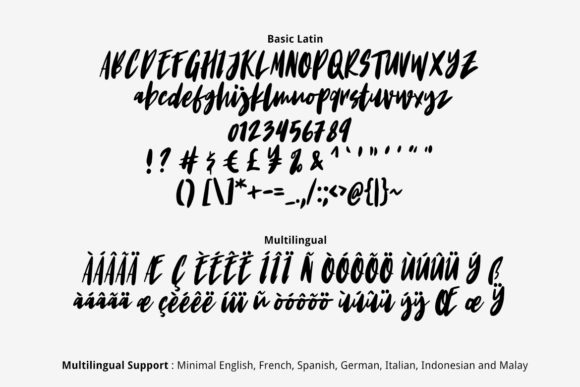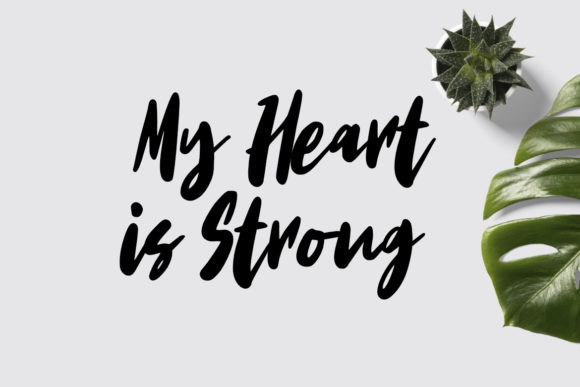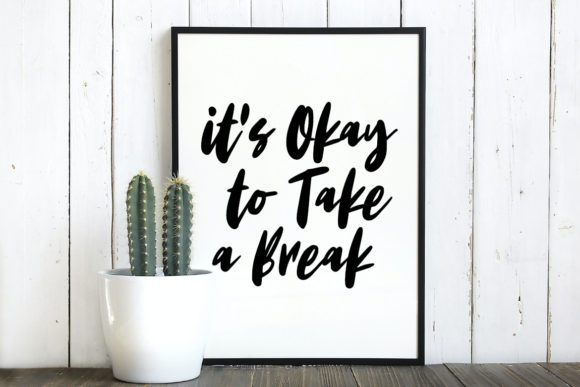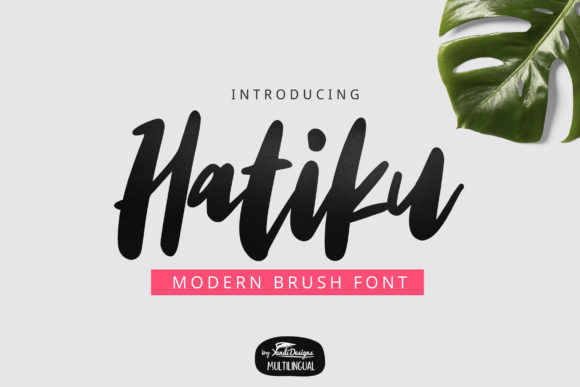
Introducing Hatiku Font: The Cute and Playful Handwritten Font for Designers and Crafters
Are you looking for a font that can add a touch of playfulness and innocence to your design projects? Look no further than Hatiku Font! This adorable handwritten font is perfect for designers and crafters who want to create fun and engaging designs that are sure to delight. In this article, we’ll take a closer look at Hatiku Font, its features, and how you can use it to take your designs to the next level.
What is Hatiku Font?
Hatiku Font is a cute yet thick lettered handwritten font that is sure to capture the hearts of designers and crafters alike. Its lovely and childish appearance makes it perfect for a variety of school projects, informal design ideas, and even commercial projects that require a playful touch. The font’s unique and charming style is sure to add a personal touch to any design, making it stand out from the crowd.
Key Features of Hatiku Font
So, what makes Hatiku Font so special? Here are some of its key features:
- Cute and Playful Design: Hatiku Font has a unique and adorable design that is sure to bring a smile to anyone’s face. Its thick lettered style gives it a sturdy and confident look that’s perfect for headlines and titles.
- Handwritten Style: The font has a beautiful handwritten style that gives it a personal and organic feel. This makes it perfect for designs that require a touch of warmth and personality.
- Versatile: Hatiku Font is incredibly versatile and can be used on a wide range of design projects, from school projects and crafts to commercial designs and branding.
- Easy to Read: Despite its playful design, Hatiku Font is easy to read and understand, making it perfect for designs that require a clear and concise message.
How to Use Hatiku Font in Your Designs
Now that we’ve covered the features of Hatiku Font, let’s take a look at how you can use it in your designs:
School Projects
Hatiku Font is perfect for school projects that require a playful and creative touch. Use it to create fun and engaging posters, presentations, and worksheets that will capture the attention of your students.
Crafting and DIY Projects
If you’re a crafter or DIY enthusiast, Hatiku Font is a great addition to your design toolkit. Use it to create beautiful and unique labels, signs, and cards that will add a personal touch to your projects.
Commercial Designs
Hatiku Font can also be used in commercial designs, such as branding, packaging, and advertising. Its playful and charming style makes it perfect for businesses that want to appeal to a younger audience or create a fun and relaxed brand identity.
Tips and Tricks for Using Hatiku Font
Here are some tips and tricks for using Hatiku Font in your designs:
- Pair it with Other Fonts: Hatiku Font looks great when paired with other fonts, such as sans-serif fonts or script fonts. Experiment with different font combinations to create a unique and interesting design.
- Use it for Headlines and Titles: Hatiku Font is perfect for headlines and titles, where its bold and playful design can really shine.
- Add some Color: Hatiku Font looks great with bright and bold colors, so don’t be afraid to add some color to your design to make it pop.
In conclusion, Hatiku Font is a beautiful and versatile handwritten font that is perfect for designers and crafters who want to add a touch of playfulness and innocence to their designs. Its unique and charming style makes it perfect for a wide range of design projects, from school projects and crafts to commercial designs and branding. With its ease of use and flexibility, Hatiku Font is sure to become a favorite in your design toolkit.